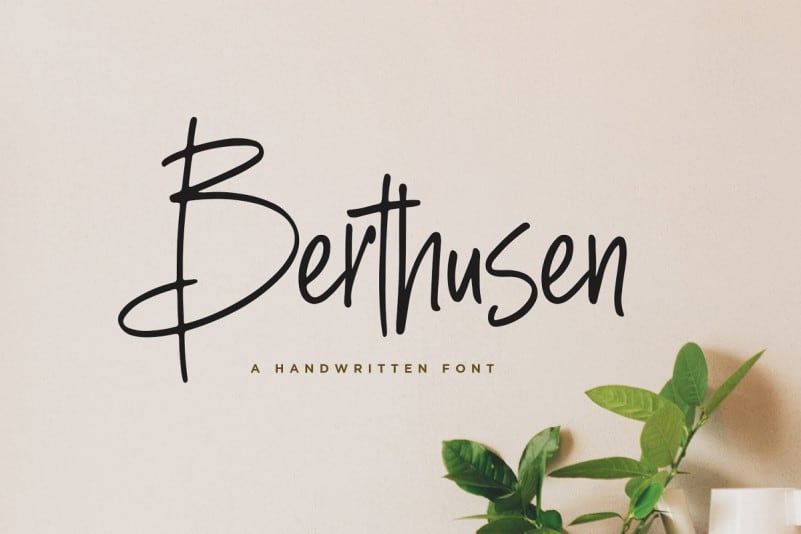
Berthusen Handwritten Font
Berthusen is a stylish handwritten script font with a simple and classy style. It is perfect for branding, wedding invitations and invitation cards and many more.
Font includes a full set of gorgeous uppercase and lowercase letters, numbers, a large selection of punctuation marks, ligatures.